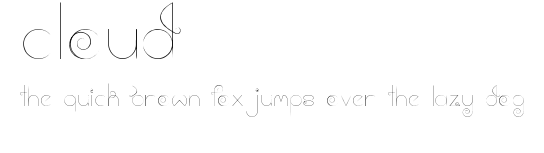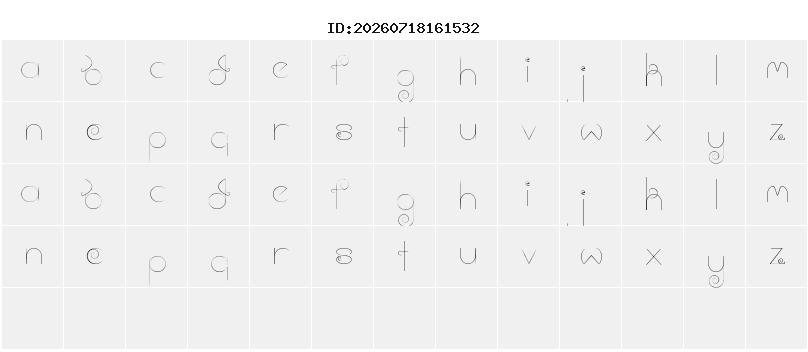
cloud Preview
About cloud.ttf
cloud.ttf is a modern, elegant sans-serif font designed for ultimate readability and visual harmony. Perfect for branding, headlines, web design, and print materials.